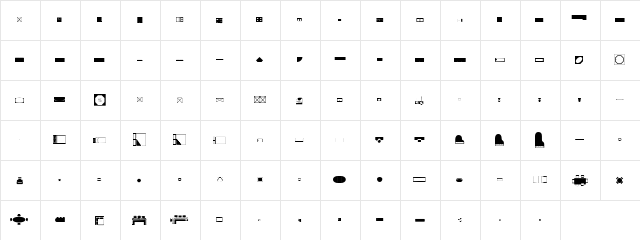
Fornish Regular
Design Context for Fornish Typeface
Fornish takes a measured approach to typography — its balanced proportions and neutral character make it a reliable workhorse for both digital and print work.